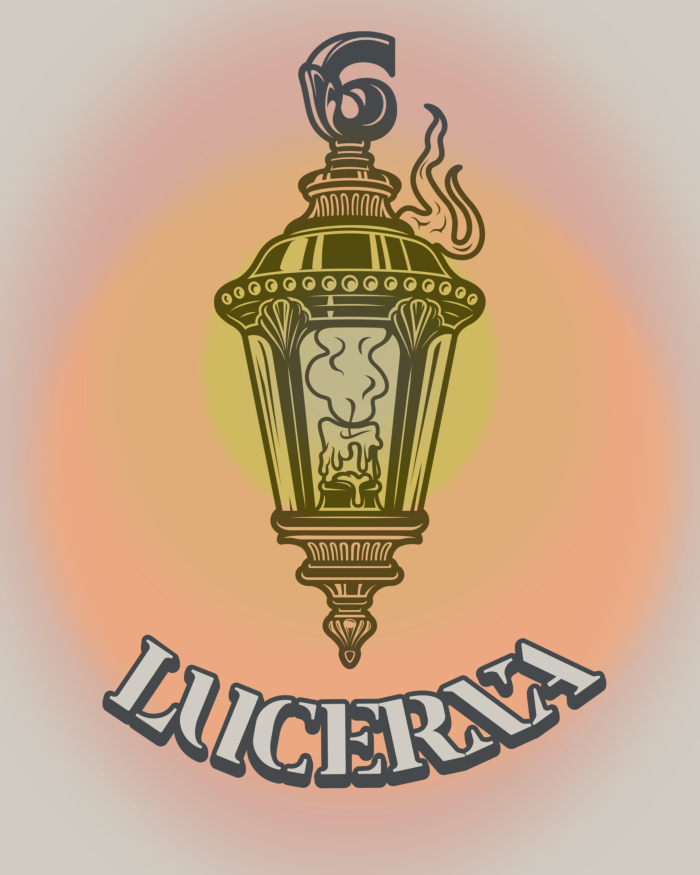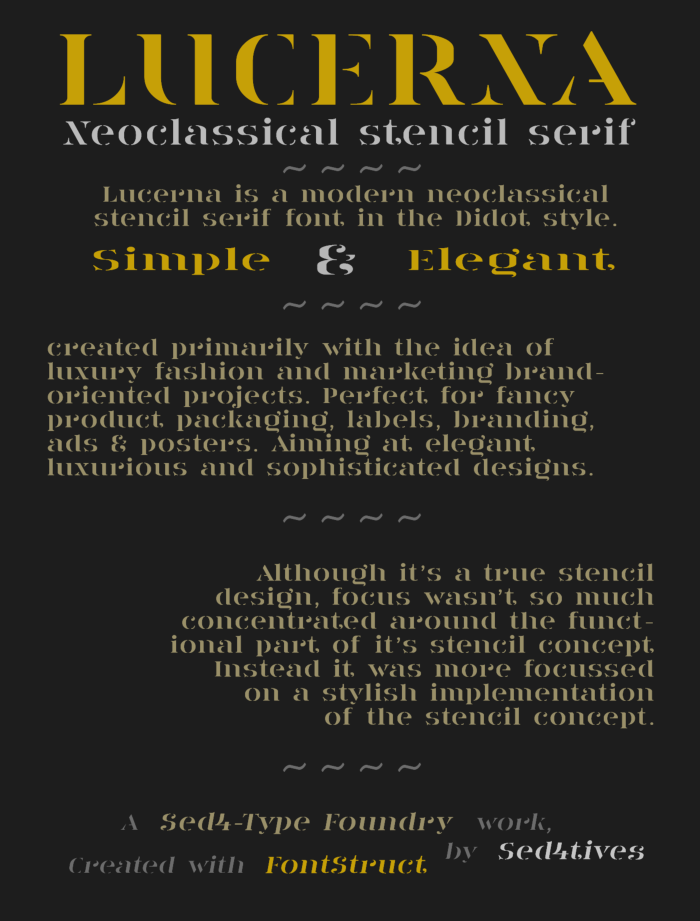
• LUCERNA — Neoclassical stencil serif
Lucerna is a modern neoclassical stencil serif in the Didot style.
Simple & Elegant...
Created primarily with the focus towards luxury fashion and marketing brand-oriented projects, aiming at luxurious and sophisticated design projects.
Although it’s a true and fully functional stencil, design focus wasn’t so much
concentrated around the 'functionality' part of the stencil concept. Instead it was more focussed on the stylish implementation of the concept and on making sure it looks pretty.
The stencil concept was achieved by way of stroke omissions. Some of which are large and drastic, leaving only critical parts of the stroke intact, while others are more subtle, like those detached crossbars or cuts seen in the hairlines.
Thin transitional bracketed serifs and a mixture of various sized teardrop- and pointy terminals, combined with the high stroke contrast, these make up for a sharp and interesting looking font that provokes this thoughtful stencil letter concept.
There is a lot of subtle dynamic height deviations going on, hoping to tune in to more of a lively rhythm, and introduce some playful characteristic properties.
Minute changes to optimize optical performance have also been implemented, such as overshoots. The relative low cap-height makes up for a somewhat short and stocky uppercase quality. Its accompanied by a relatively tall x-height that results in a fairly large lowercase size. Due to the lower cap-height of the font, the short ascenders parts of the lowercase letters still exceed above the Cap-Line, preserving some of that otherwise lost white space, improving legibility.
The design's missing segments and various random detached bits 'n pieces aren't as functional in smaller sizes. Making it harder to read or distinguish detached letter elements from puntuation marks. So it is best used for display purpose.
A small number of glyph alternative forms are included as well:
• 2 forms of lowercase letter a: Single-storey and double-storey (default).
• 2 forms of upper- and lowercase letters Ss: Pointy terminals (default) and teardrop terminals.
• 2 forms of upper- and lowercase letter Tt:  Uppercase letter T has two variations of pointy terminals, normal angled and extra angular. Lowercase letter t has alternative form with teardrop shaped terminal to use at the end of words, and can add a slightly more stylish look. The default version has better proportional width with just a small non-decorative curved terminal, this default form has smaller width for a improved horizontal text advance.
• 4 forms for lowercase letter g: Just 3 additional extra slightly alternate forms.
• 5 forms for lowercase letter f: Bracketed (default), curved, teardrop narrow, teardrop extra narrow, teardrop wide.
• Extra set of Copyright symbols: Cap-height size and x-height size.
• 5 forms of Pilcrow symbols: Just 4 additional extra alternate forms.
Btw, "Lucerna" is a word used in spanish that means "little window" or also "little lantern".
@elmoyenique: Yup, translated from Latin it means "Lantarn" as well.
About the X-Height: Having its height raised that far in comparison to the Cap-Height, this innitially ate a lot of white space this font desperatelly needed. So to compensate for some of this loss in response the lower case ascender parts had been raised slightly further as well, making them exceed well above the Cap-Height.
But that "stuffed round belly" kind of appeal that is present in some of the bowl shape lower case letters just can not be denied. And perhaps even gets somewhat erotic in nature to a certain extend. I simply love that cuddly attractiveness and curvaceous, well-fed rotunds. It's strange that dispite this amazing love story (ehmm), and general appreciation for such form, I haven't crafted a great deal of such fonts so far yet.
Excellent stencil with lots of beautiful details, especially the ear on r and a!